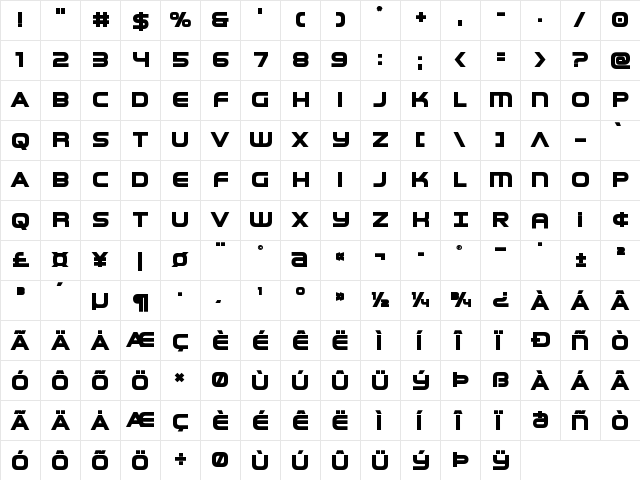
Omega Flight Bold Regular
Design Context for Omega Flight Bold Typeface
Omega Flight Bold is a composed and adaptable typeface that performs quietly and consistently across a wide range of design contexts. Its bold stroke weight gives it real presence on the page.